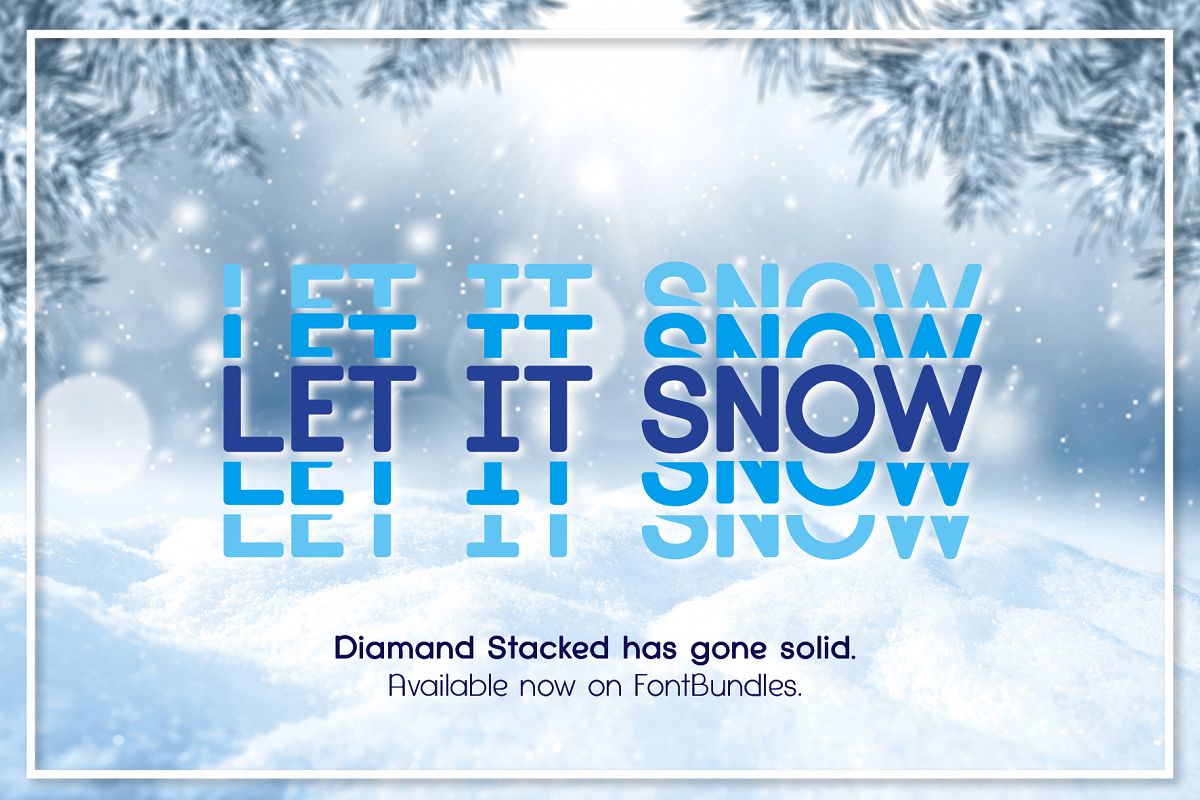
Diamanda Stacked - Best seller!
***Update *** Now includes a bonus solid Stacked font for easier cutting.
Diamanda Stacked comes in solid and outline. Perfect for t-shirts, logos, etc.